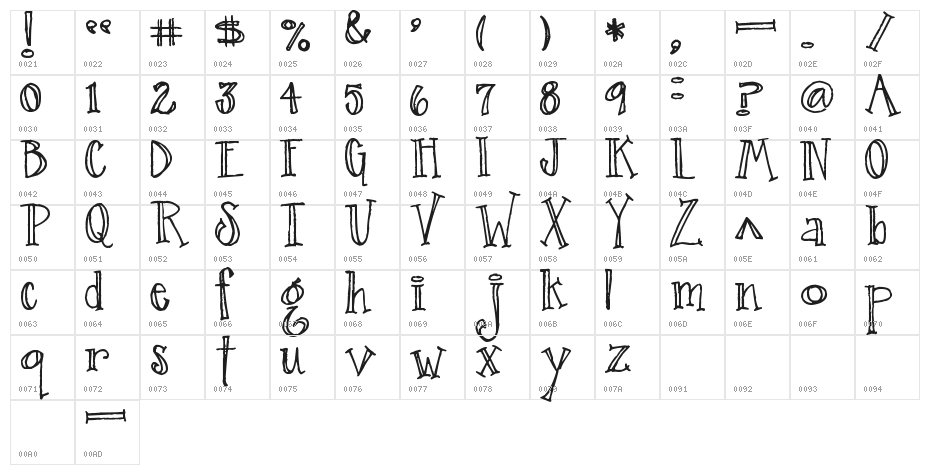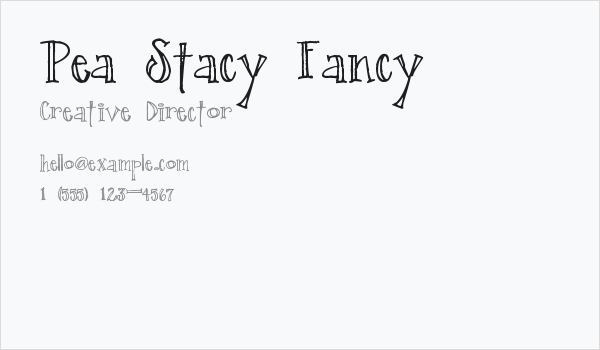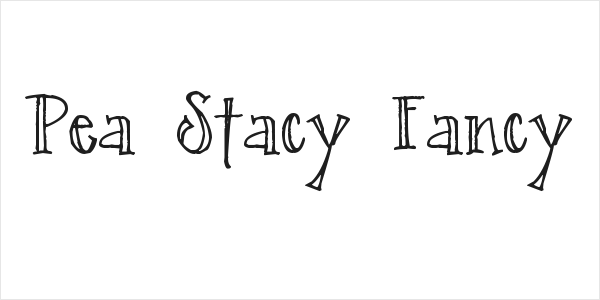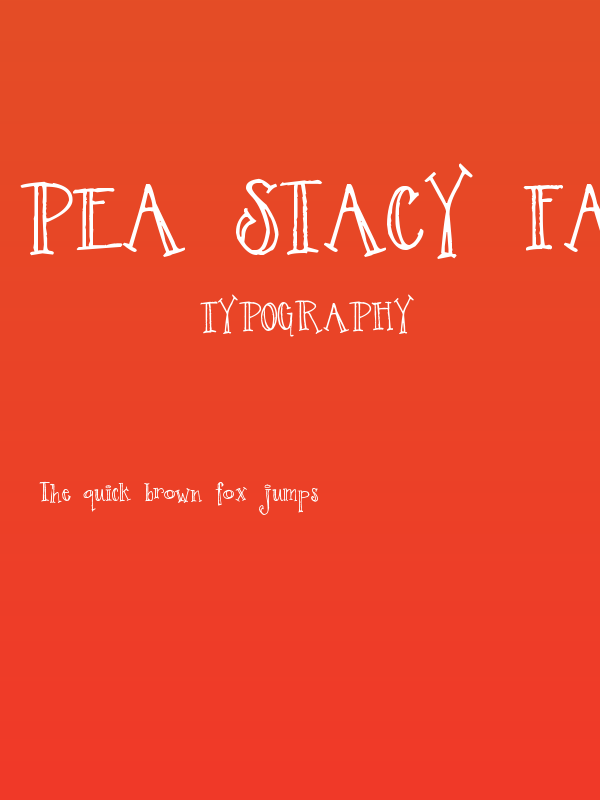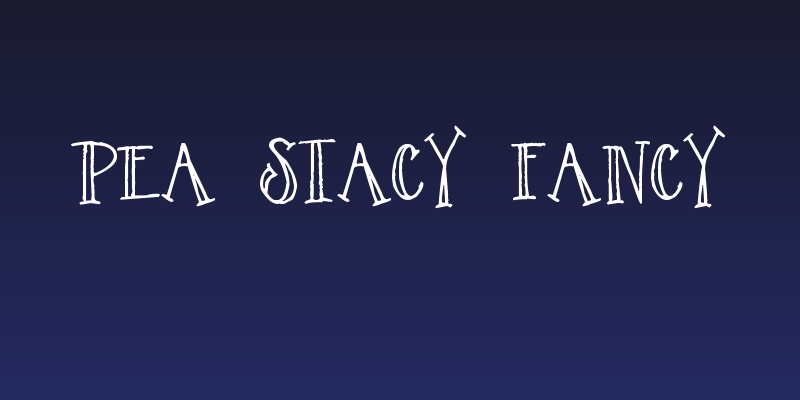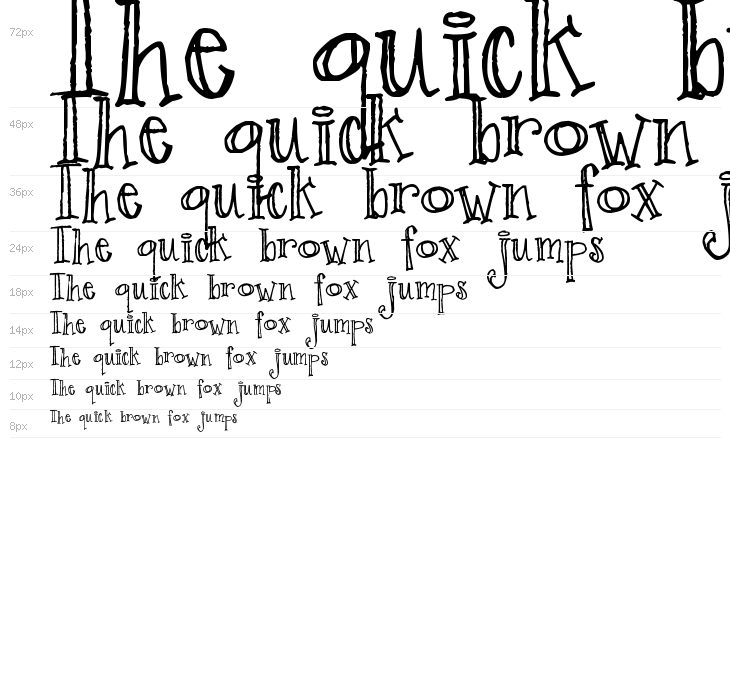
Pea Stacy Fancy Font
Pea Stacy Fancy Description
This font features a playful and whimsical style, characterized by its hand-drawn appearance and uneven lines. The letters have a slightly irregular form, giving them a unique and artistic flair. The uppercase and lowercase letters maintain a consistent style, with elongated strokes and quirky curves. The numbers and special characters follow the same playful theme, adding to the overall cohesive look. This font exudes a sense of creativity and fun, making it ideal for projects that require a touch of personality and charm.
Use CaseLogos, Headlines, Creative projects
Proposed ProjectsIdeal for children's book covers, creative posters, greeting cards, and playful branding projects.